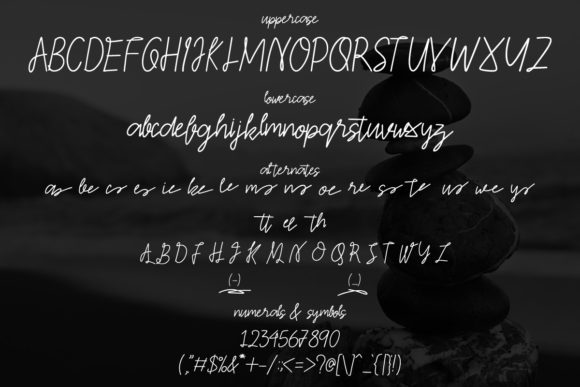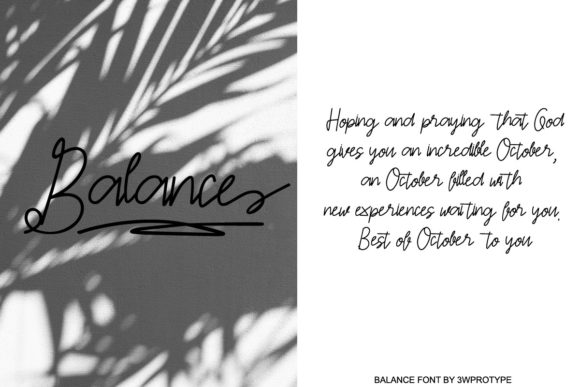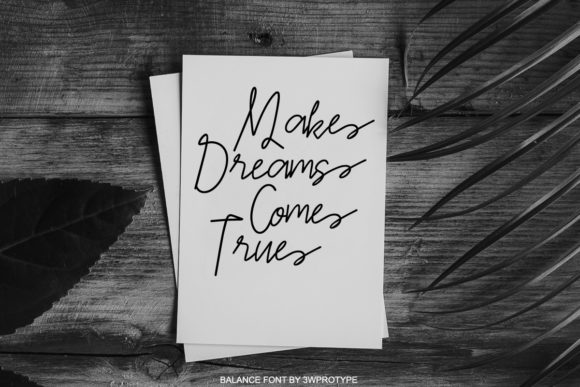
About Balance Font
Introducing the Balance Regular handwritten font, made especially for branding needs. It has a natural handwriting style that makes it great for logos, quotes, invitation letters, price lists, and much more. Highly recommended for designers who need fonts with natural and elegant handwriting styles.